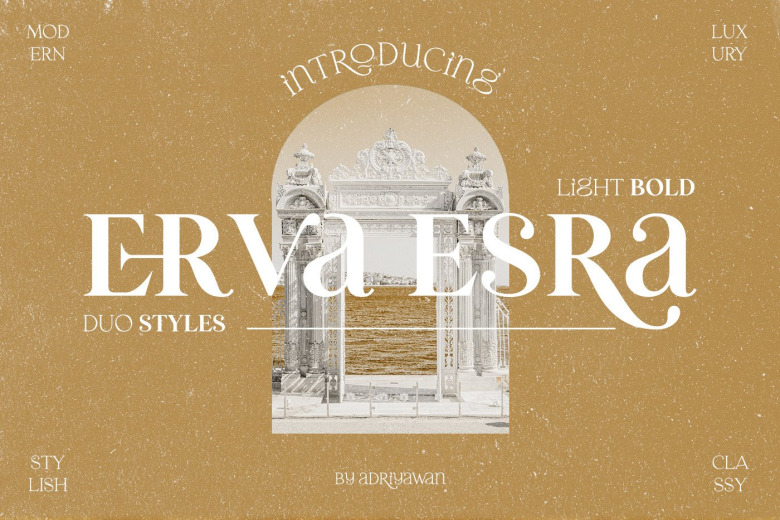
Erva Esra Font
Erva Esra is a trendy, cool and stylish serif font. Whatever the topic, this font will be a wonderful asset to your font library, as it has the potential to enhance any creation.